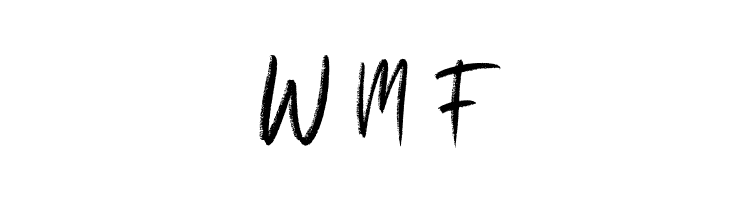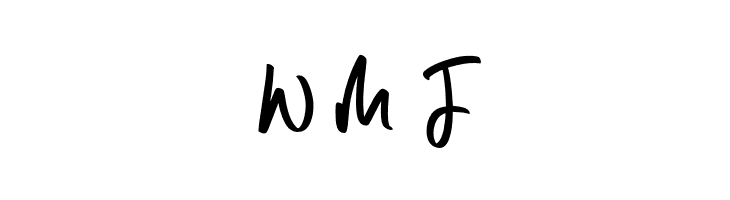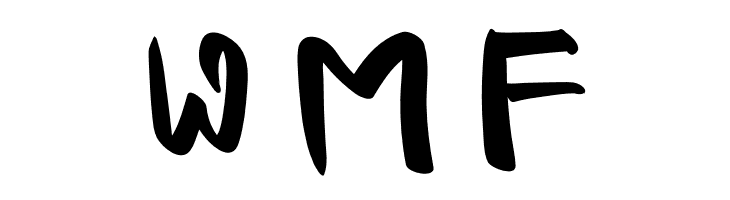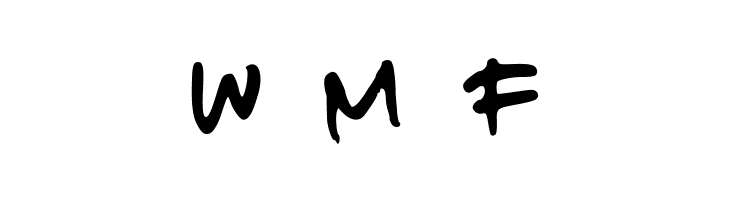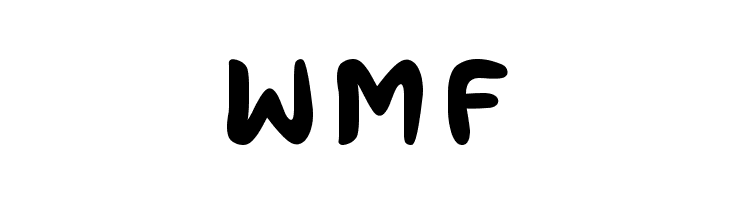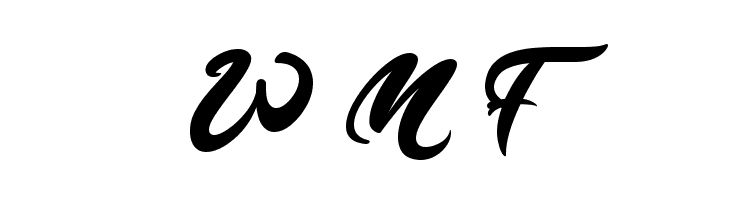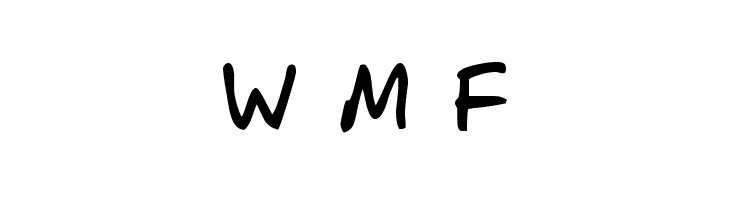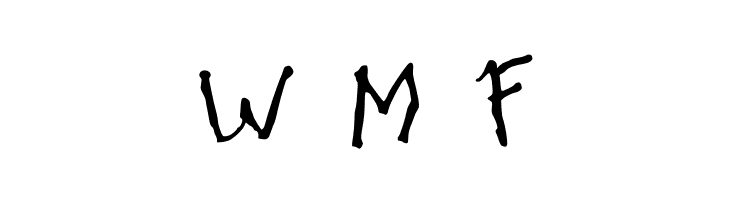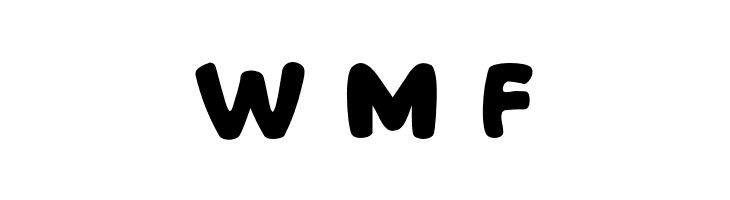
• Lalisa
A playful and expressive handwritten font with fluid, dynamic strokes.
• Lalisa Kiss - Personal Use
A bold, expressive script font with a hand-painted look.
• Lalithabai
A whimsical handwritten font with dynamic strokes and playful character.
• lalo
• laloted
• LALOUZZ
A bold, hand-painted style font with a dynamic and rough texture.
• LALProto
A stylized, abstract script with geometric and enigmatic symbols.
• LALProto
An abstract, geometric font with a futuristic and symbolic design.
• LALProtoBold
A bold, geometric font with abstract and futuristic character designs.
• Lalytcha
An elegant, flowing script font with ornate uppercase and smooth lowercase letters.
• Lalytcha
An elegant script font with flowing, cursive letterforms and decorative swirls.
• Lalytta
A dynamic and elegant script font with a modern twist.
• Lamafa
A bold, decorative font with high contrast and playful elements.
• LambadaDexter-Medium
A bold, whimsical font with playful, decorative elements and dynamic letterforms.
• Lambaretta
A bold, expressive script font with dynamic, sweeping strokes and elegant curves.
• Lambda
A modern, geometric sans-serif font with clean lines and uniform strokes.
• Lambda Italic
A modern, italicized font with a sleek and dynamic style.
• Lambe Doer
A bold, expressive handwritten font with brush-like strokes and dynamic flow.
• Lamberta Signature
A sophisticated, cursive script font with bold, flowing strokes.
• Lambo Medium
A dynamic and elegant script font with smooth, flowing curves and a slightly slanted style.
• Lambodia
A modern, elegant script font with flowing curves and unique flourishes.
• Lambola